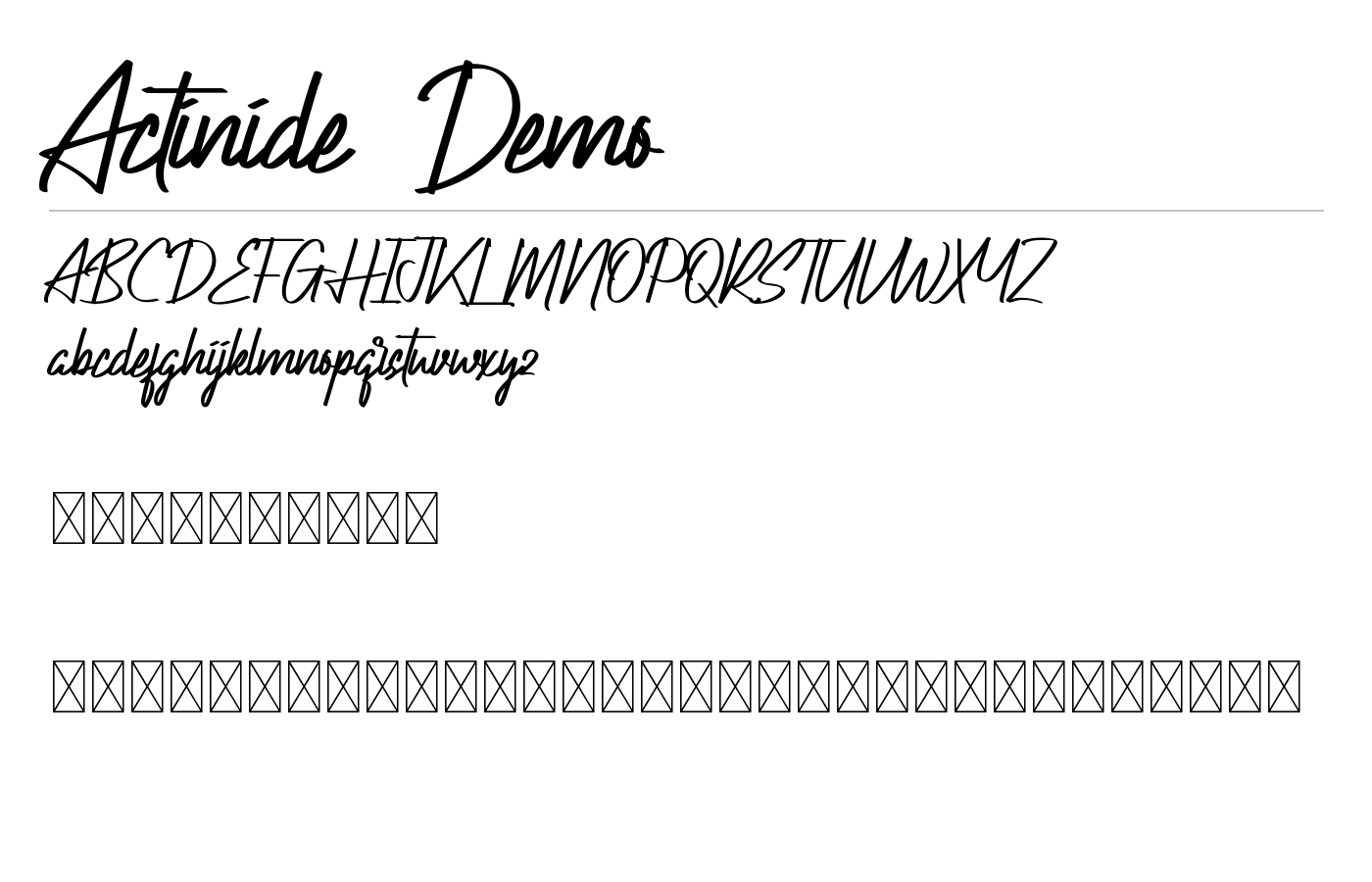
Actinide Demo is a stylish handwritten script font that features a lively and energetic flow with slender, slightly slanted letterforms. Its sharp, casual strokes and elegant curves make it perfect for creative projects, branding, and invitations where a personal and dynamic touch is desired. This font excels in display use for logos, headlines, and social media graphics, adding a modern yet approachable flair.
Actinide Demo Font
About Actinide Demo Font
| Font family | Actinide Demo Font |